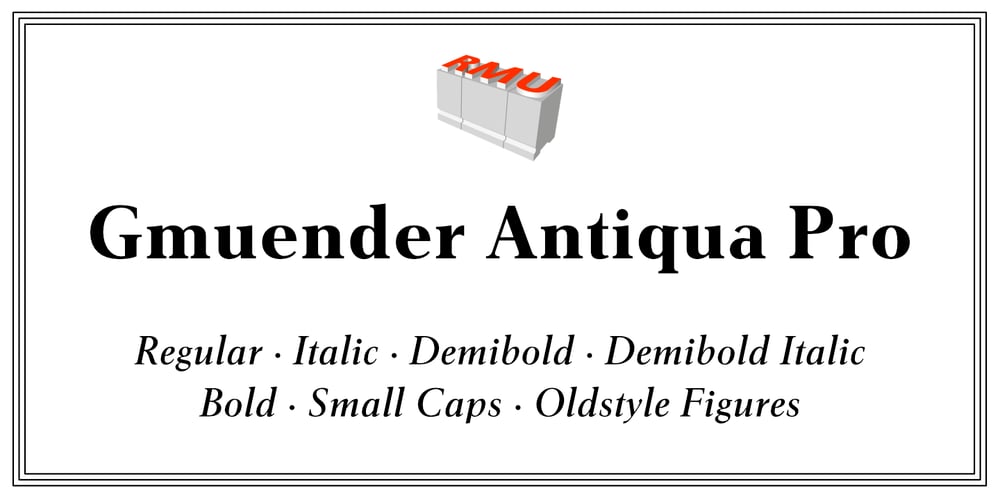
Gmuender Antiqua Pro
Gmuender Antiqua Pro font
Gmuender Antiqua Pro Font Family was designed by Ralph M. Unger and published by RMU. Gmuender Antiqua Pro contains 5 styles and family package options. Inspired by the former hot-metal fonts of Imprimatur, Gmuender Antiqua Pro is a fresh designed versatile and multilingual serif font family. All five styles contain three different forms of numbers and small caps.